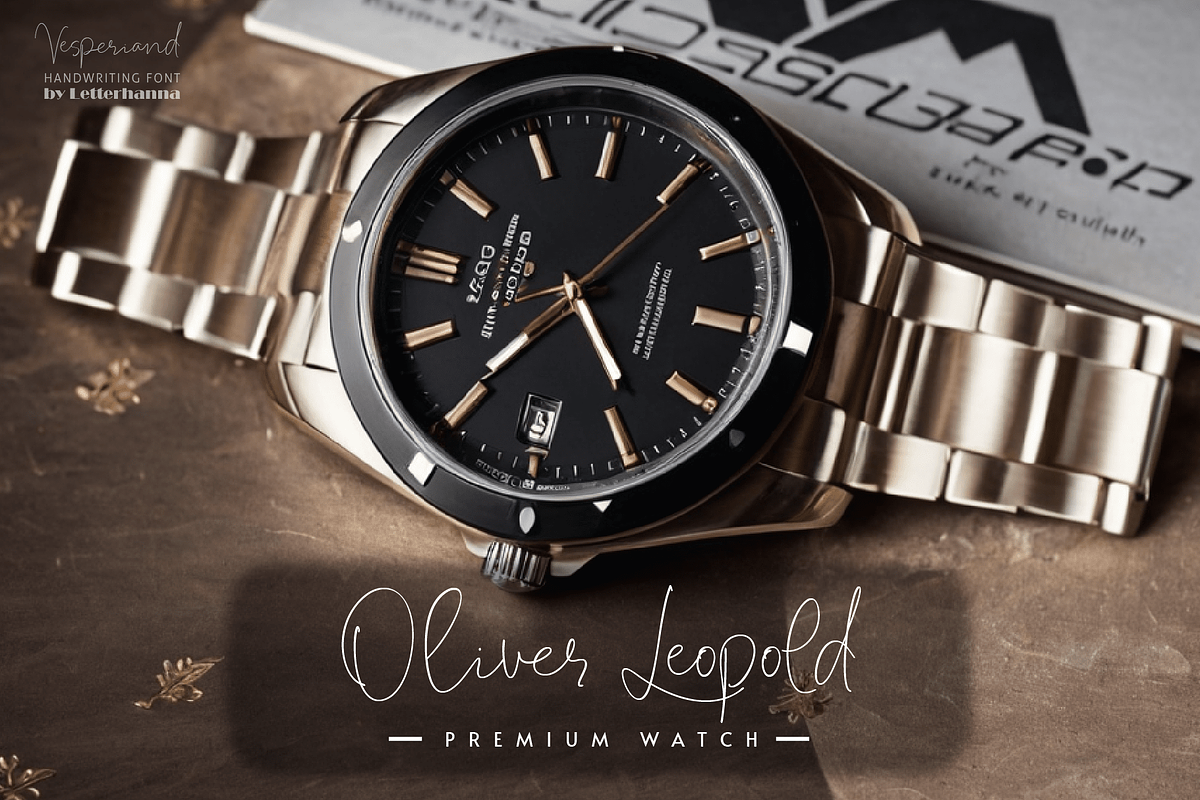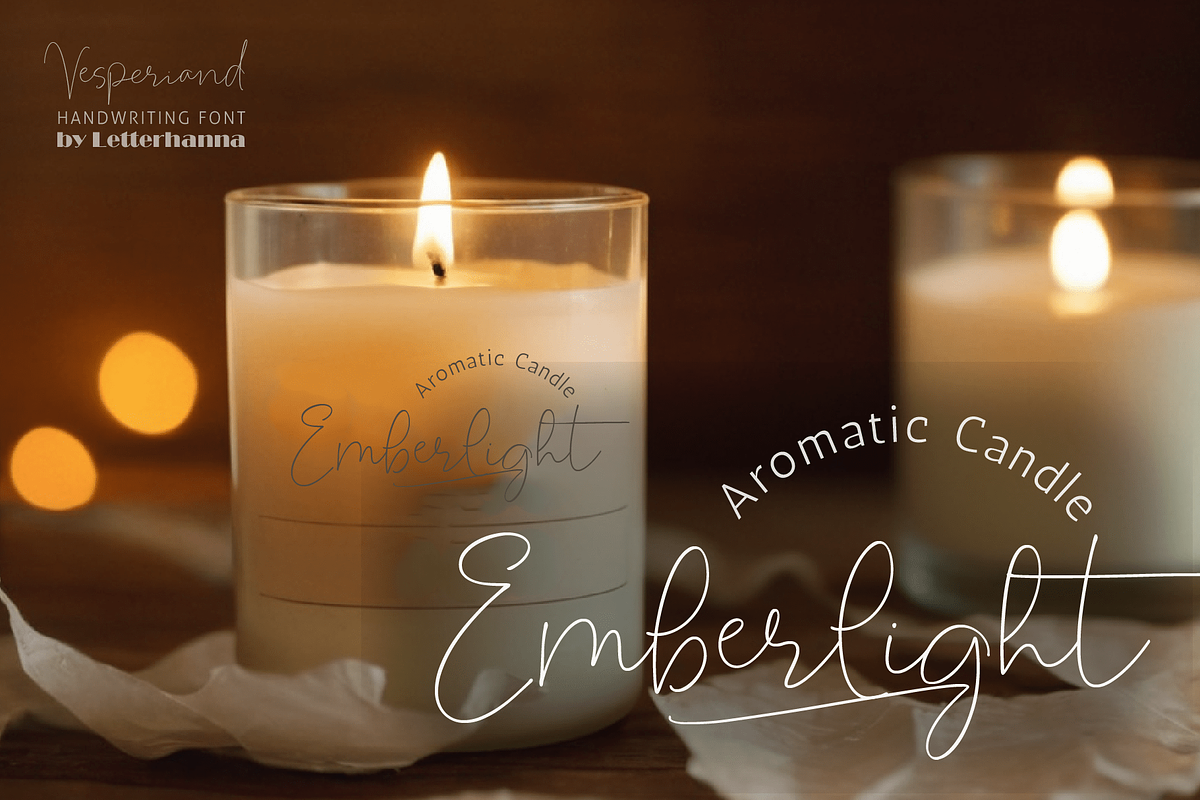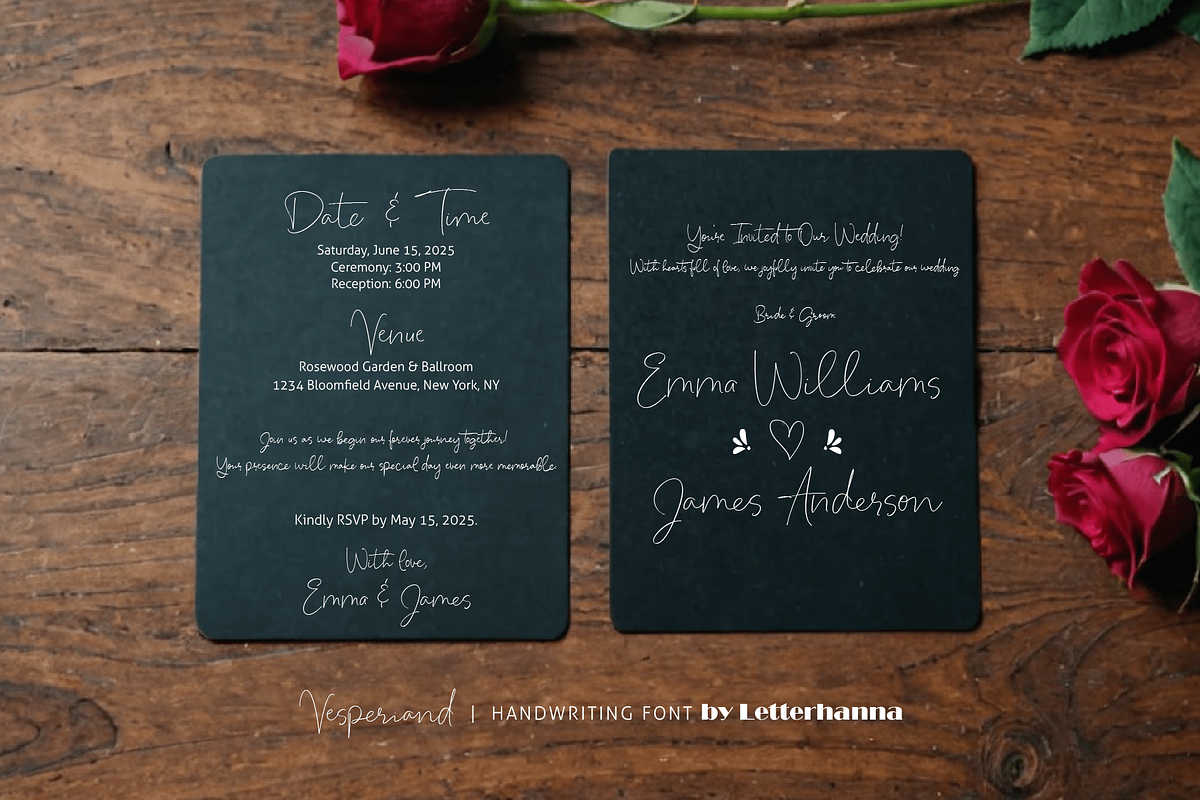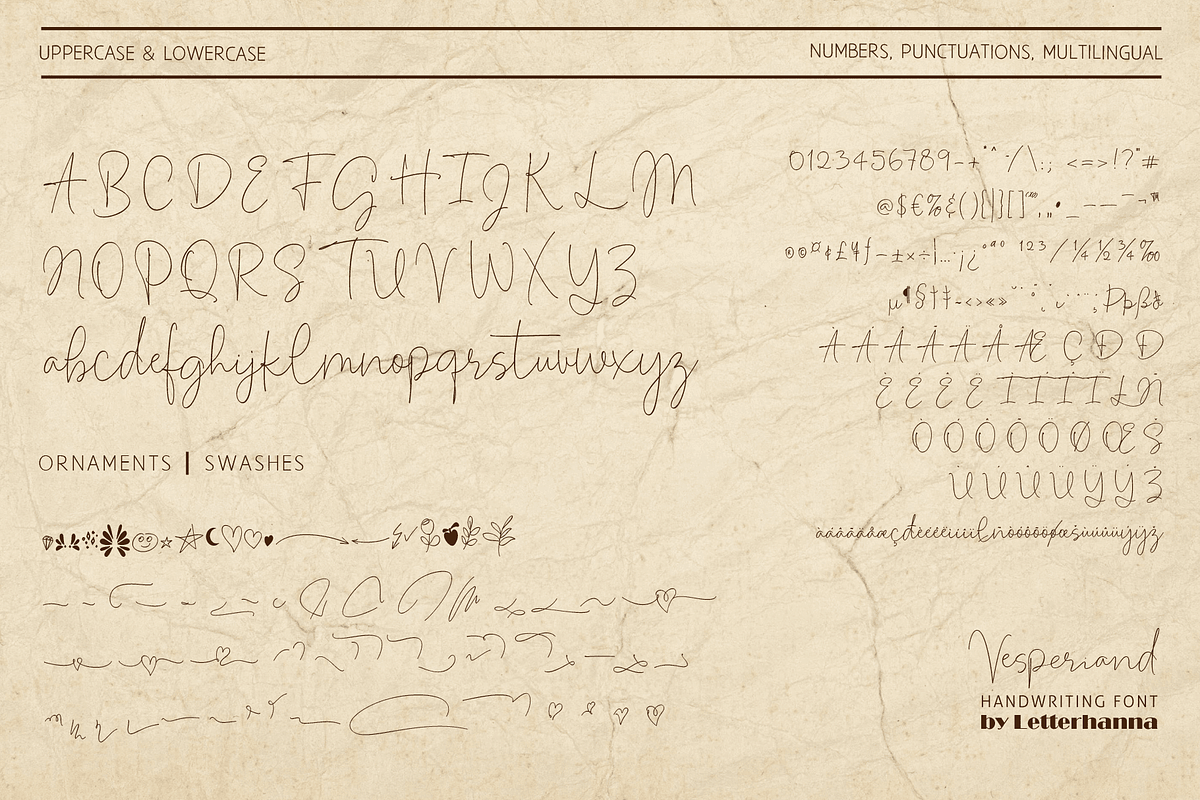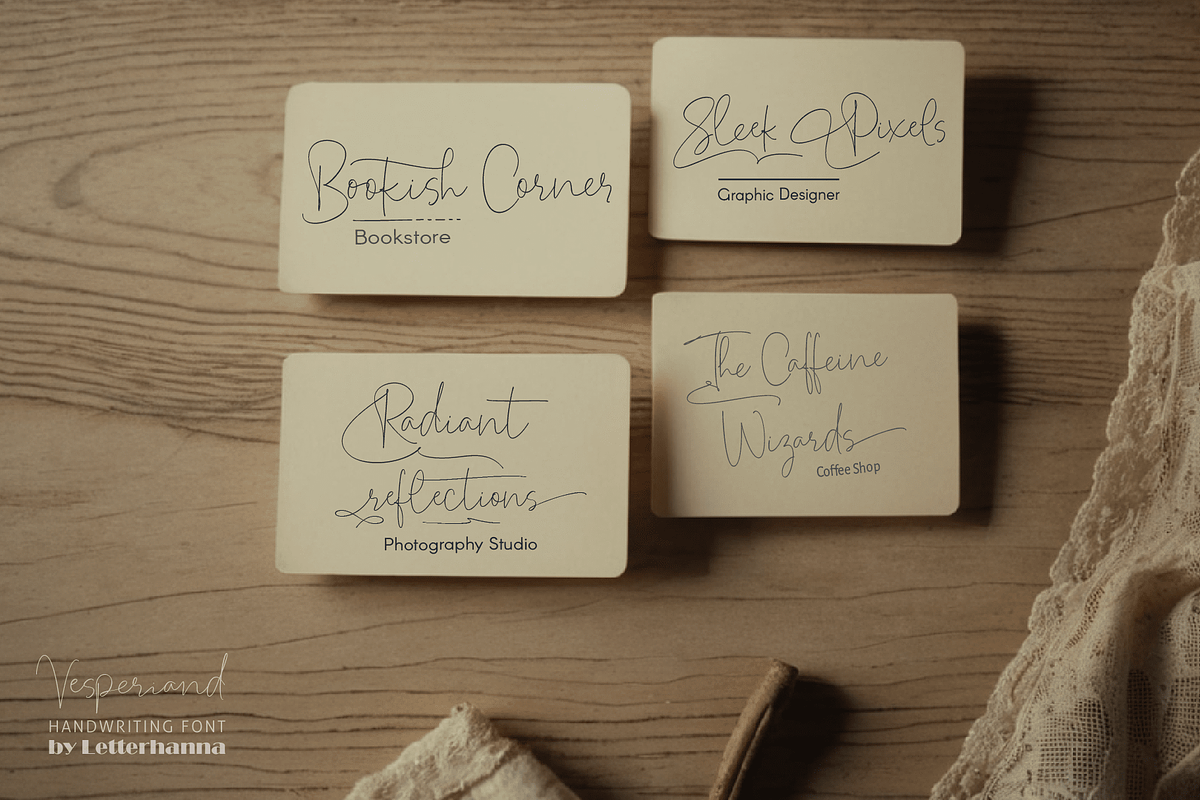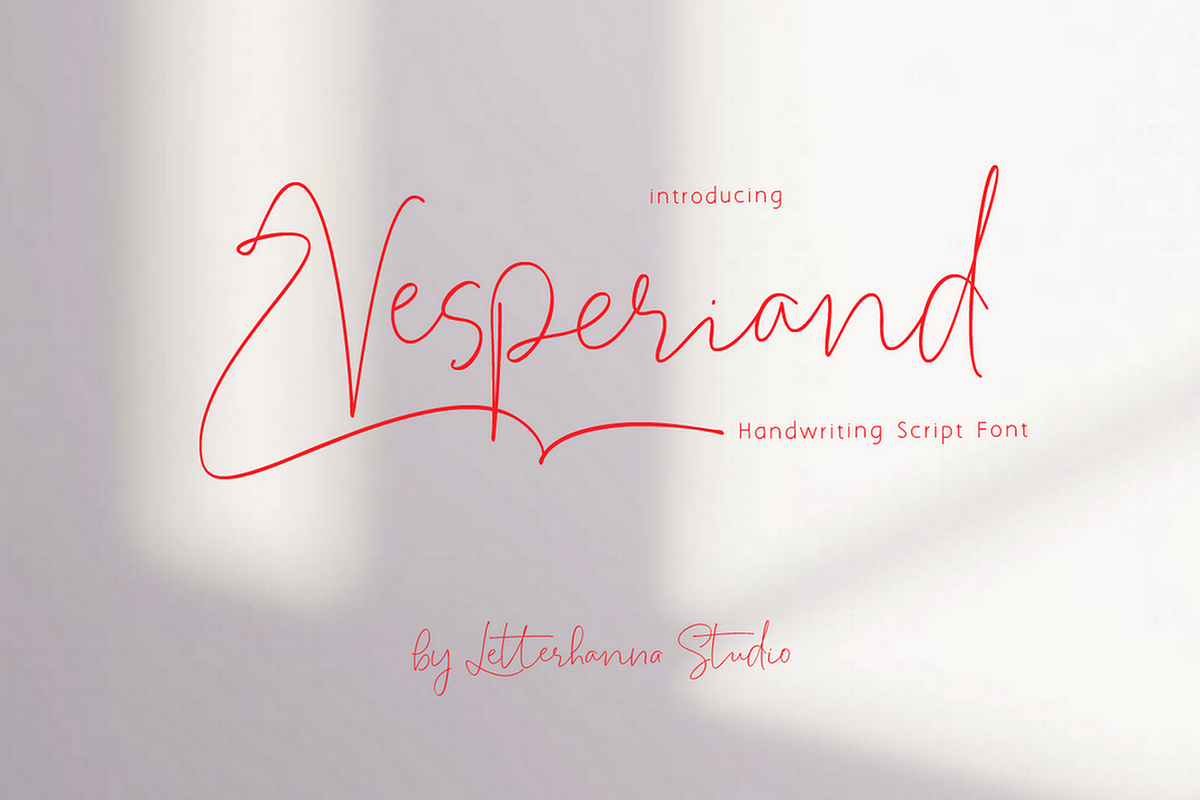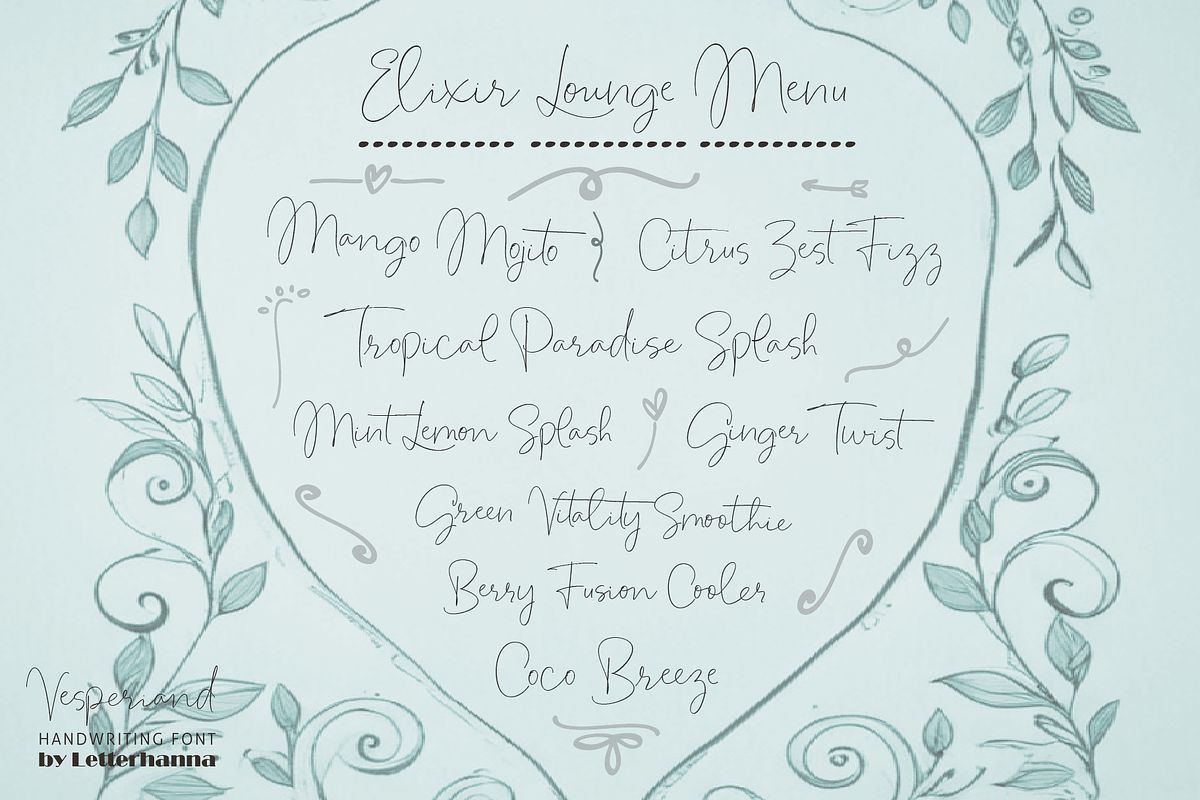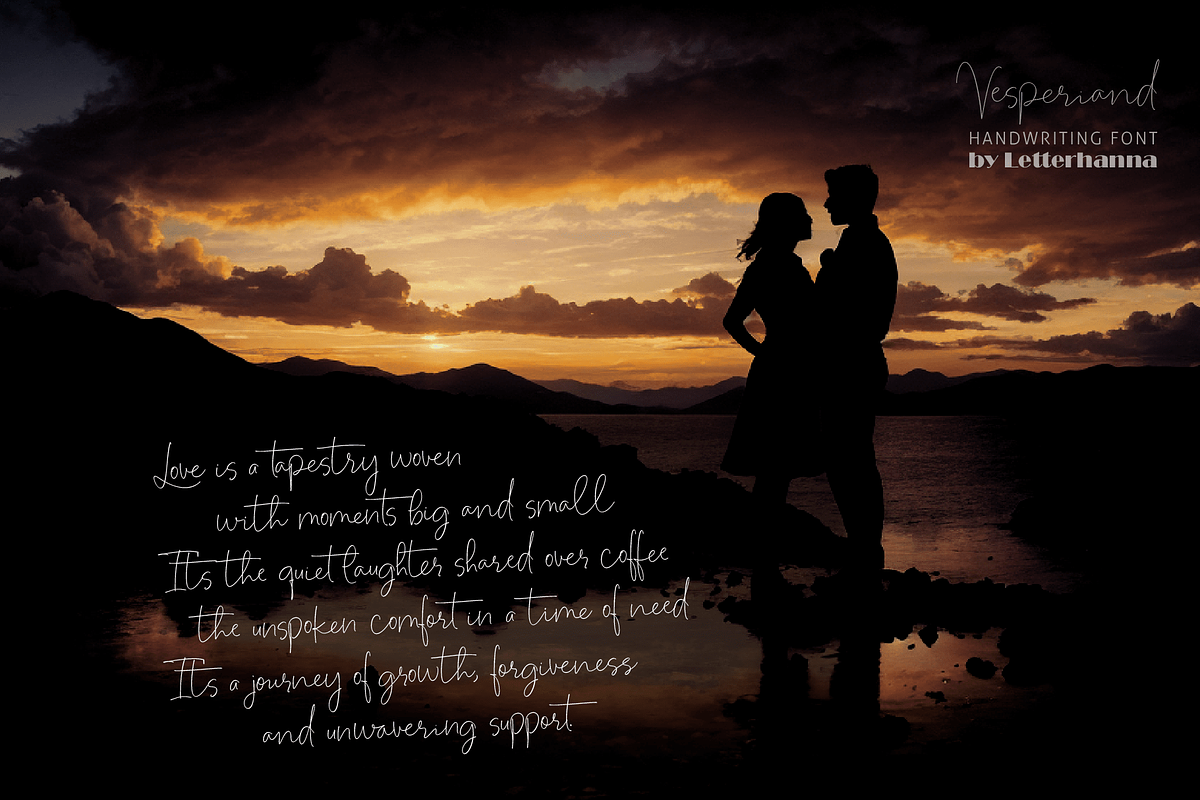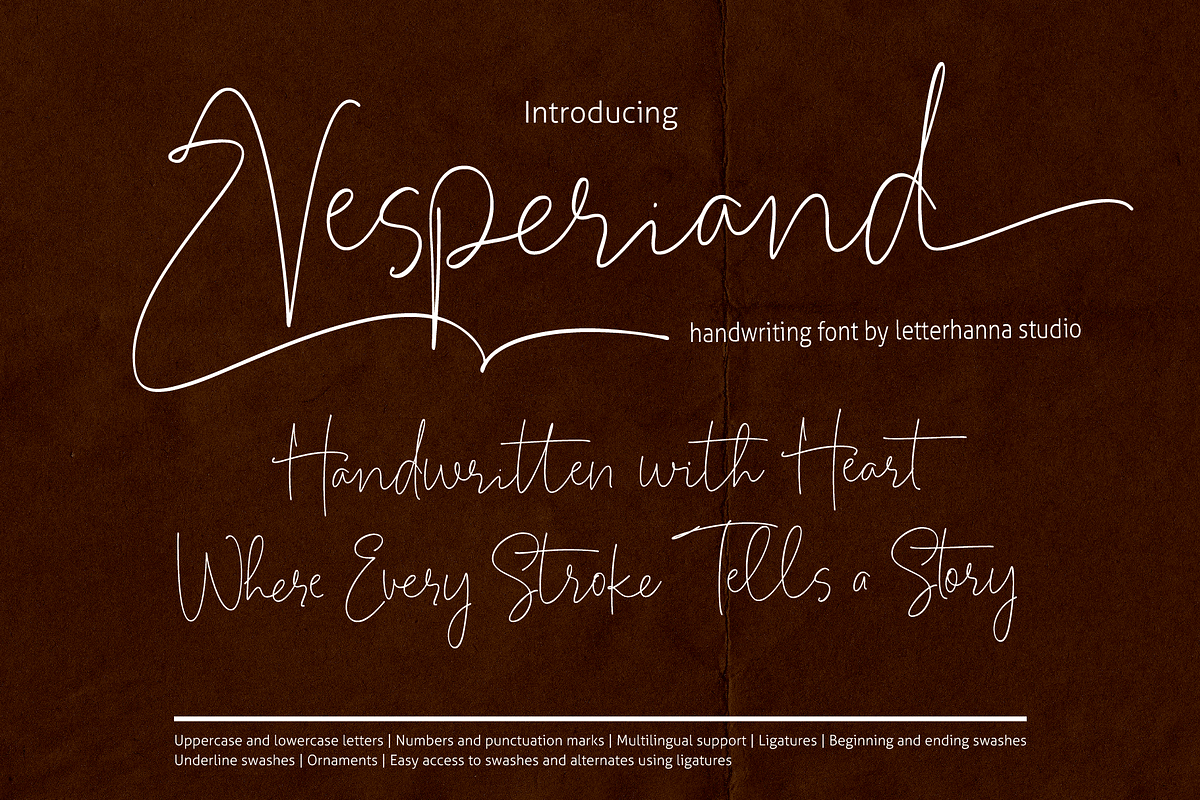
Vesperiand Handwriting Font
Introducing Vesperiand, a handwriting script font crafted for those who seek elegance with a personal touch. Designed with a rich collection of stylistic alternates, graceful swashes, and fluid ligatures, Vesperiand brings a natural yet sophisticated feel to your typography. Whether you’re working on branding, invitations, or creative projects, this font effortlessly adapts, adding charm and uniqueness to every word.
With Vesperiand, every letter flows seamlessly, creating a handcrafted aesthetic that feels both organic and refined. Its versatile design lets you mix and match swashes and alternates, giving you endless possibilities to personalize your text. Elevate your designs with the expressive beauty of Vesperiand—where artistry meets authenticity.
Easy Access to Glyphs and Swashes
Accessing Swashes and Ornaments
-Underline Swashes: Use a hyphen symbol "-" followed by a number between 1 and 50. For example, type "-3", "-22", or "-17" to get various underline swashes.
-Head/Beginning Swashes: Use a dollar sign "$" followed by a number between 1 and 15. For example, type "$2" or "$8" to get different head/beginning swashes.
-Tail/Ending Swashes: Use a percent sign "%" followed by a number between 1 and 33. For example, type "%3" or "%15" to get various tail/ending swashes.
-Ornaments: Use an "at" symbol "@" followed by a number between 1 and 21. For example, type "@4" or "@13" to get different ornaments.
PUA Encoding for Ease of Use, which means you can access all the glyphs and swashes with ease!
Font Features -Uppercase and lowercase letters -Numbers and punctuation marks -Multilingual support -Ligatures -Beginning and ending swashes -Underline swashes -Ornaments -Easy access to swashes using ligatures